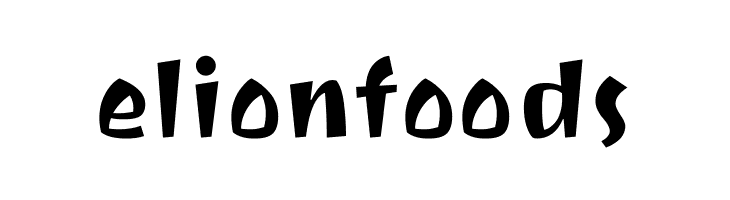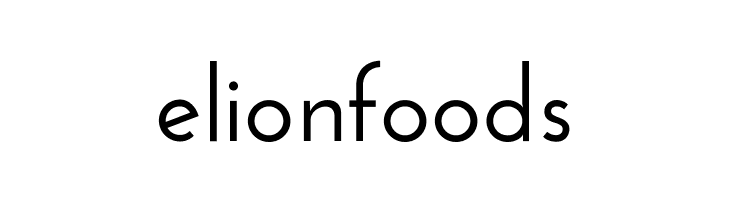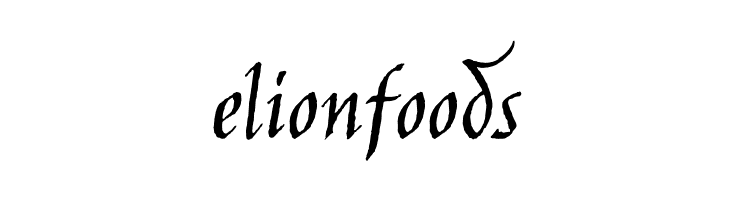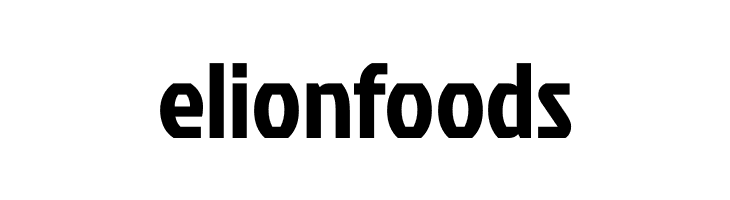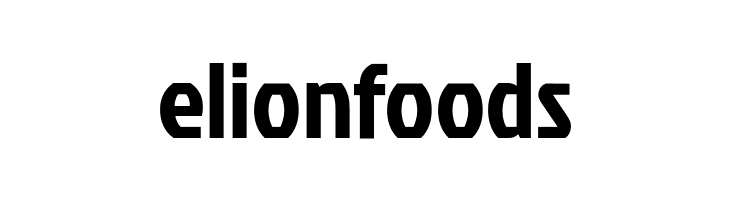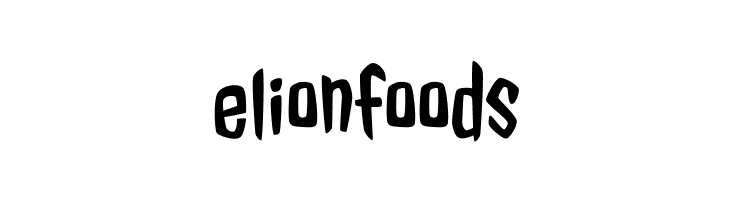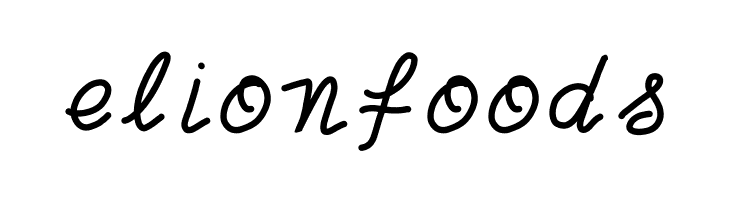
A dynamic, calligraphic font with sharp, angular strokes and a slanted orientation.
A playful, handwritten-style font with a casual and friendly vibe.
A bold, modern sans-serif font with geometric shapes and clean lines.
A bold, modern sans-serif font with clean lines and geometric shapes.
A playful, bold font with a hand-drawn, whimsical style.
A geometric sans-serif font with a clean, modern aesthetic.
A playful and dynamic font with bold, irregular letterforms.
A playful, hand-drawn font with a whimsical and lively style.